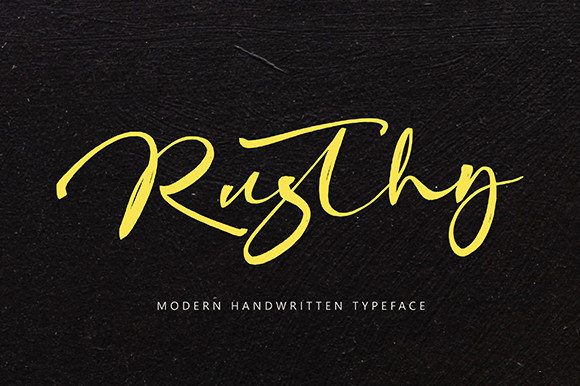
Unleash the Beauty of Modernity with Rusthy Font: Embrace Authenticity and Style
In a world of digital aesthetics, handwritten fonts hold a special place, exuding a charm that captures the essence of authenticity and style. Meet Rusthy Font, a masterpiece from the creative minds of Pineungtype & Missinklab, designed to bring a touch of handwritten elegance to your creative endeavors.
Step into a world of modern logo designs, where Rusthy Font takes center stage. Its cursive nature dances across the screen, creating a visual symphony that speaks of individuality and grace. Embrace the organic flow of its lines, as if each letter were carefully penned by a skilled artisan.
Whether you're crafting a captivating logo for your brand, designing a heartfelt invitation, or adding a touch of personal flair to your social media presence, Rusthy Font is your perfect companion. Its versatility extends beyond logos, making it a stunning choice for branding, packaging, and even personal projects where authenticity and uniqueness are paramount.
As a script font, Rusthy Font captures the essence of handwritten notes, evoking a sense of intimacy and connection. It's a font that speaks to the heart, leaving an indelible mark on your audience. Its natural curves and delicate strokes add a touch of sophistication, ensuring that your designs stand out from the crowd.
With Rusthy Font at your fingertips, you unlock a world of creative possibilities. Let your imagination soar as you explore new ways to express yourself. From elegant wedding invitations to eye-catching social media posts, Rusthy Font is your trusted ally in crafting designs that resonate with your audience.
Don't settle for ordinary fonts that blend into the background. Embrace the artistry of Rusthy Font and watch as your designs transform into captivating masterpieces. Its unique character and modern aesthetic will leave a lasting impression, ensuring that your brand stands out in the digital realm.